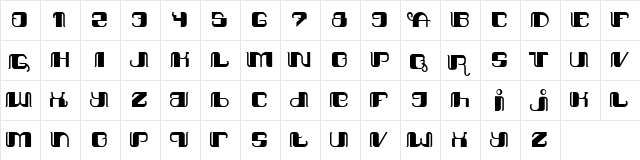
Kediriku Bagus Regular
Design Context for Kediriku Bagus Typeface
Kediriku Bagus is a composed and adaptable typeface that performs quietly and consistently across a wide range of design contexts.